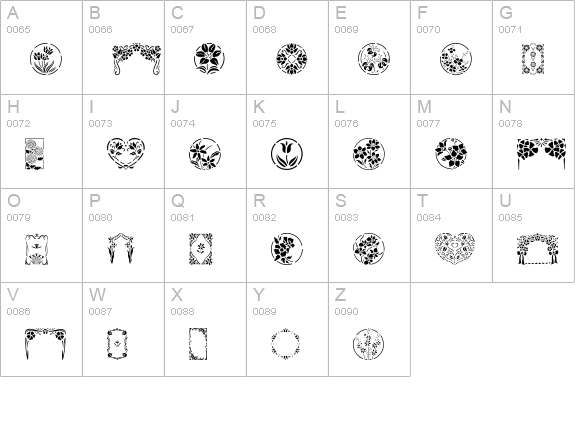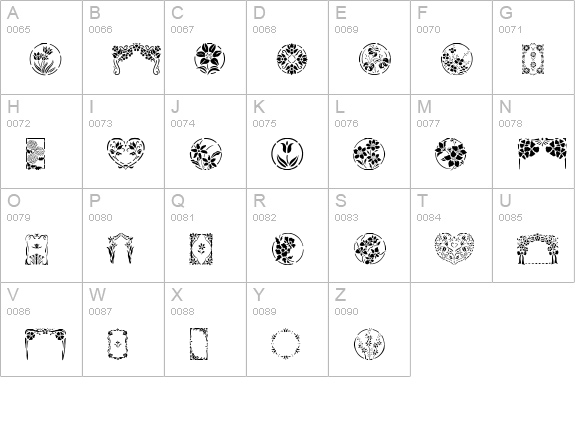
Floral Stencil Design Font Details
The Floral Stencil Design font is a charming and elegant typeface that beautifully captures the delicate beauty of blooming flowers. Its intricate details and graceful curves make it the perfect choice for adding a touch of sophistication to your design projects. This font exudes a sense of femininity and grace, making it ideal for invitations, wedding stationery, and other romantic designs. What sets the Floral Stencil Design font apart is its unique stencil design, which adds a modern twist to its classic floral motif. This combination of traditional elegance and contemporary style creates a truly eye-catching and versatile font that is sure to make your designs stand out. Best of all, the Floral Stencil Design font is completely free to download at FontsMarket.com. Whether you're a professional designer looking to add a fresh new typeface to your collection or a hobbyist in need of a beautiful font for a special project, this font is the perfect choice. Download it today and let your creativity bloom with the Floral Stencil Design font.